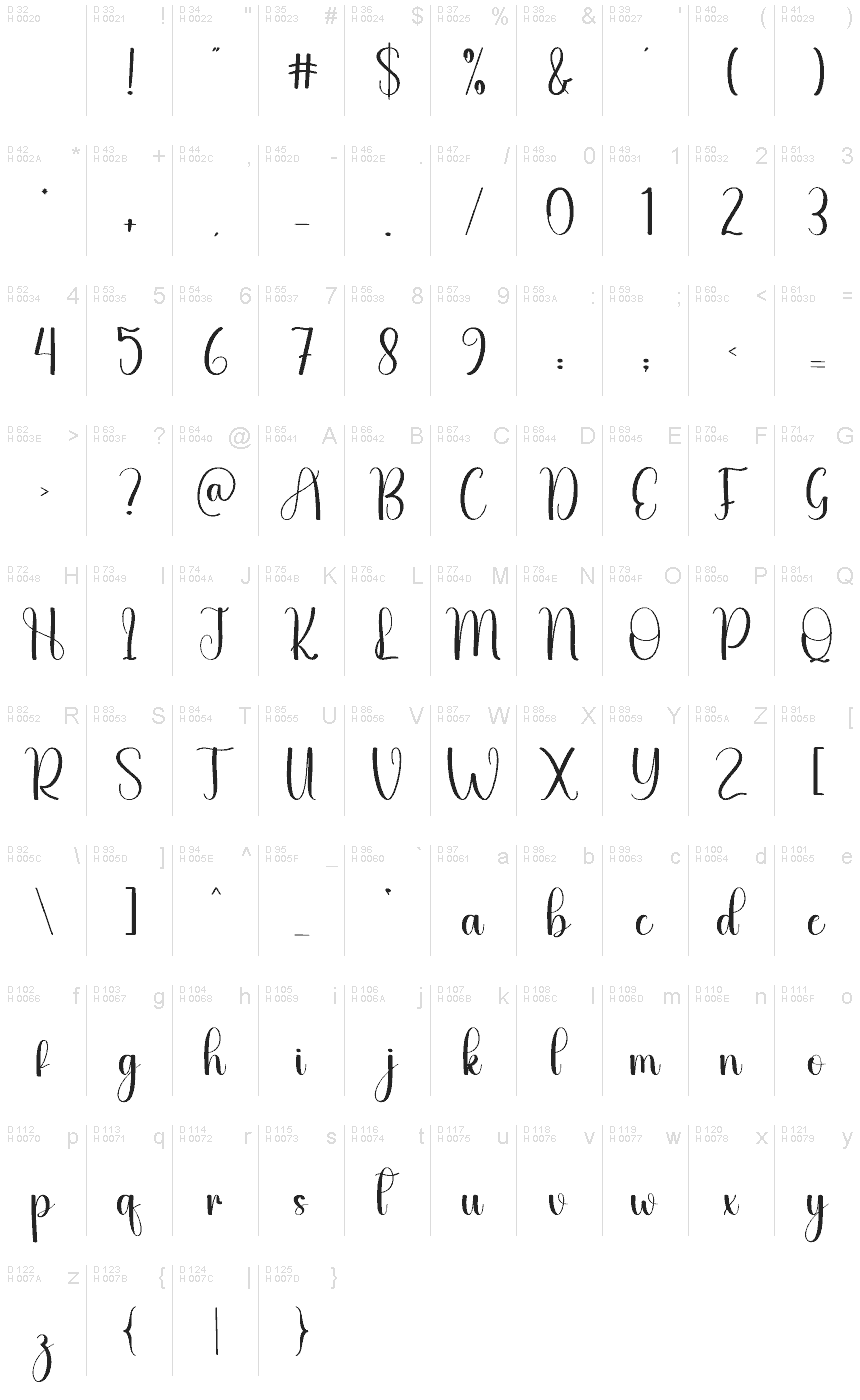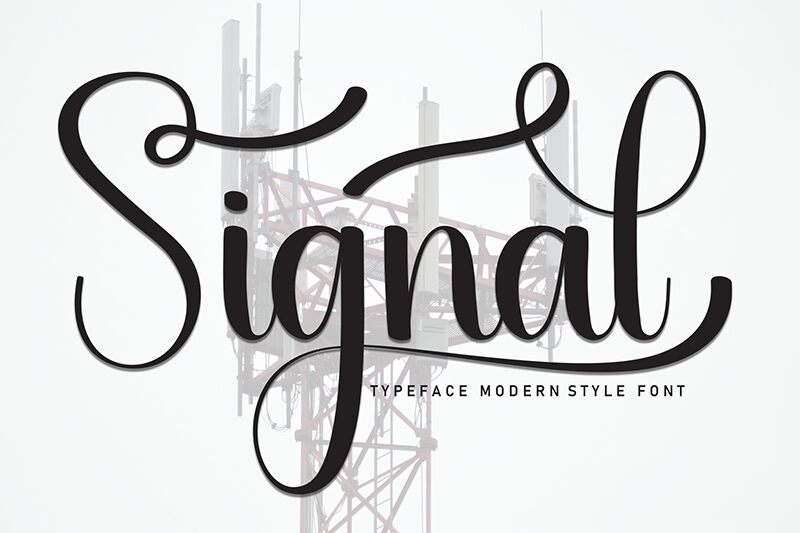
Signal
Signal font by Andi Moz is a delightful free calligraphy font aligning its elegant elements with classic typography’s relevance in today’s contemporary design. The cursive hand-made item has all the right ingredients including elegance, fluidity, sophistication, charm, and character.
Graceful curves will elevate your creations for weddings such as invitations and save-the-date cards. Use Signal in beautifully clear logos, packaging labels, apparel designs, stationery items, magazines or books headlines and titles. It can also be used to a charming effect in websites or blogs.